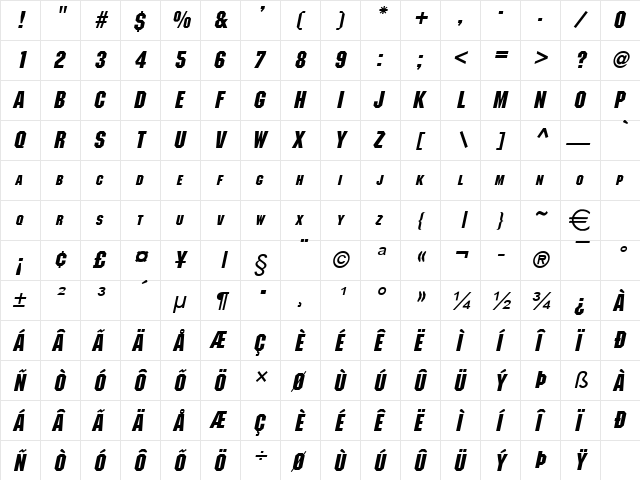
Block BoldItalic
Design Context for Block Typeface
Block is a composed and adaptable typeface that performs quietly and consistently across a wide range of design contexts. Its italic angle brings a sense of urgency and motion to the letterforms. The heavy weight commands attention and anchors typographic hierarchies.
Pro Tip: Use Block for emphasis, pull quotes, and subheadings where its slanted energy can add rhythm to the layout.